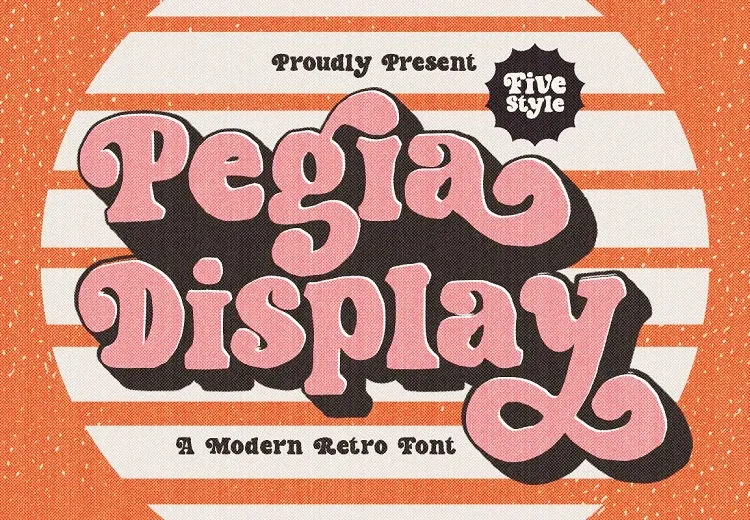
Pegia Display Font Family
Pegia Display is a charming modern display retro font family that adds a playful and cheerful touch to any design. Whether you’re creating posters, branding materials, or any creative project, Pegia Display brings a lively and vibrant energy that can make your designs stand out.
Perfect for a wide range of applications, this font is ideal for those looking to inject a sense of fun and nostalgia into their work. Its unique style can transform ordinary projects into eye-catching masterpieces, ensuring your designs leave a lasting impression.